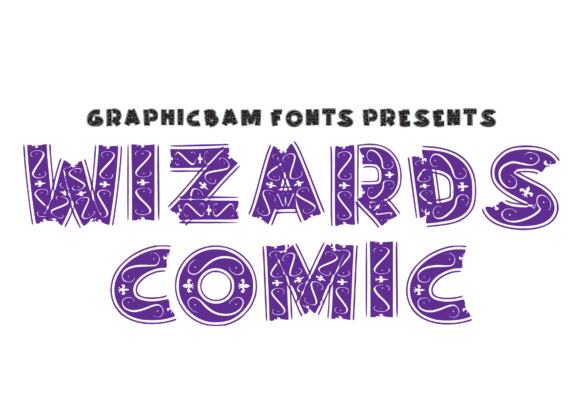
Step into the enchanting world of Wizards Comic, where letters dance with magic and creativity flows like a river. This captivating display font, crafted by the skilled hands of GraphicsBam Fonts, is a masterpiece that will ignite your imagination and elevate your designs to new heights.
Unleash the power of Wizards Comic, a font that embodies the essence of joy, wonder, and whimsy. Its bold strokes and playful curves create an irresistible charm that will leave your audience spellbound. Whether you're a seasoned designer or just starting your creative journey, Wizards Comic is the perfect font to bring your ideas to life.
Picture this: a children's book with characters who leap off the page, their adventures brought to life by the enchanting strokes of Wizards Comic. Or a magical website that transports visitors to a realm of fantasy, where every click reveals a new wonder. With Wizards Comic as your ally, the possibilities are endless.
This font is not just a collection of letters; it's a gateway to a world where imagination reigns supreme. Let your creativity soar as you weave tales of heroism, friendship, and adventure. With Wizards Comic as your trusty companion, your designs will be the talk of the town, leaving an indelible mark on the hearts of your audience.
So embark on this extraordinary journey with Wizards Comic, the font that will cast a spell on your designs and leave you mesmerized. Its captivating charm and boundless versatility will transform your projects into masterpieces, captivating audiences with its undeniable magic. Embrace the magic of Wizards Comic and let your creativity run wild!